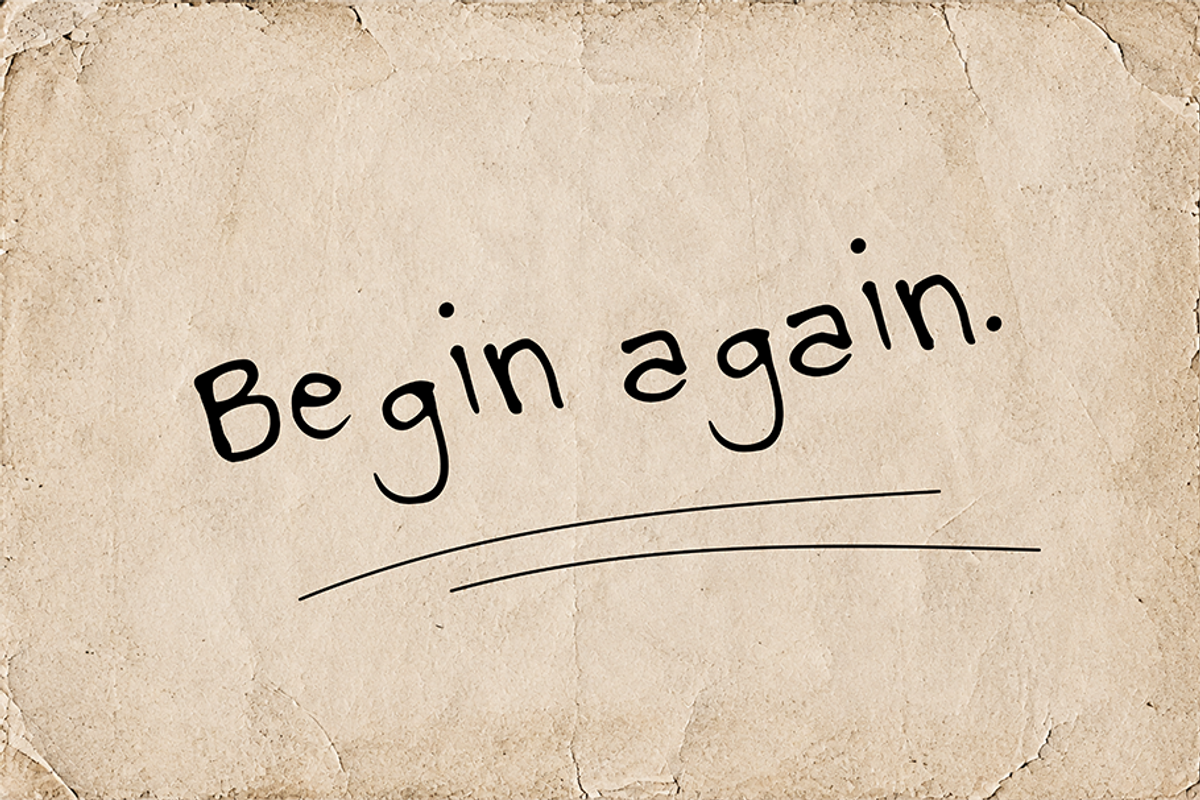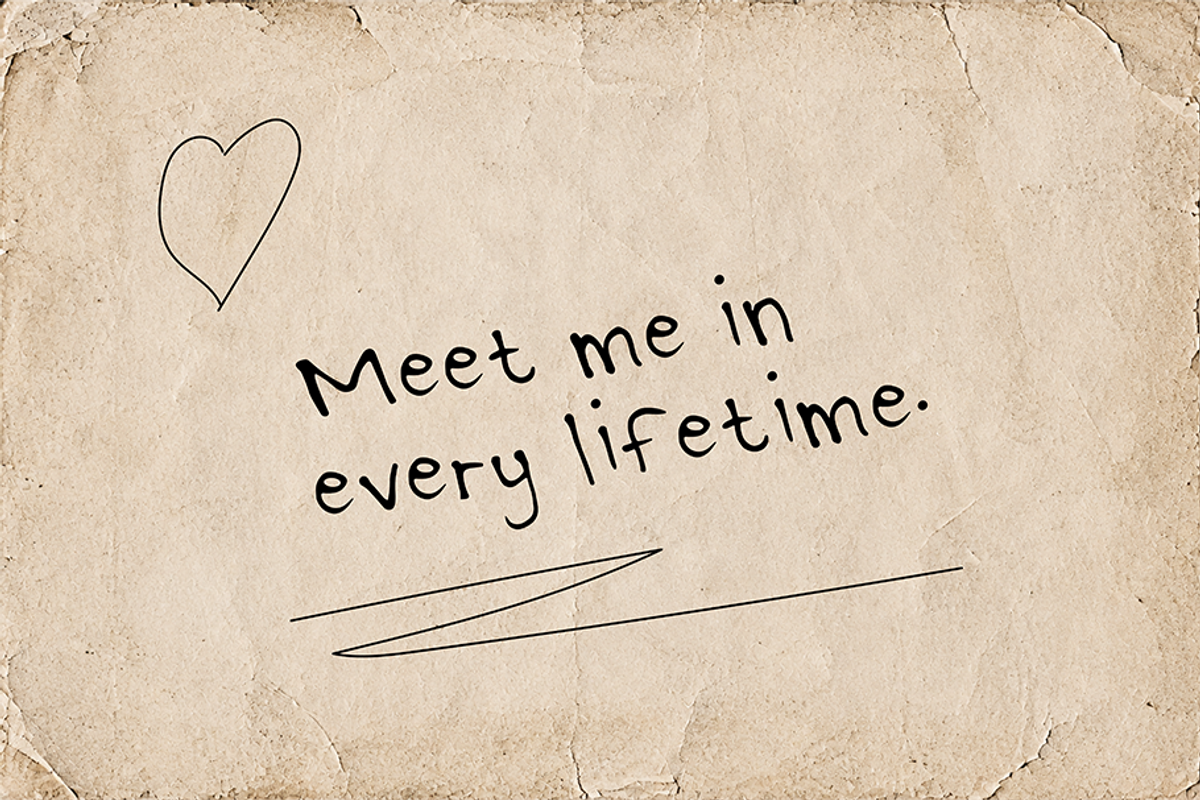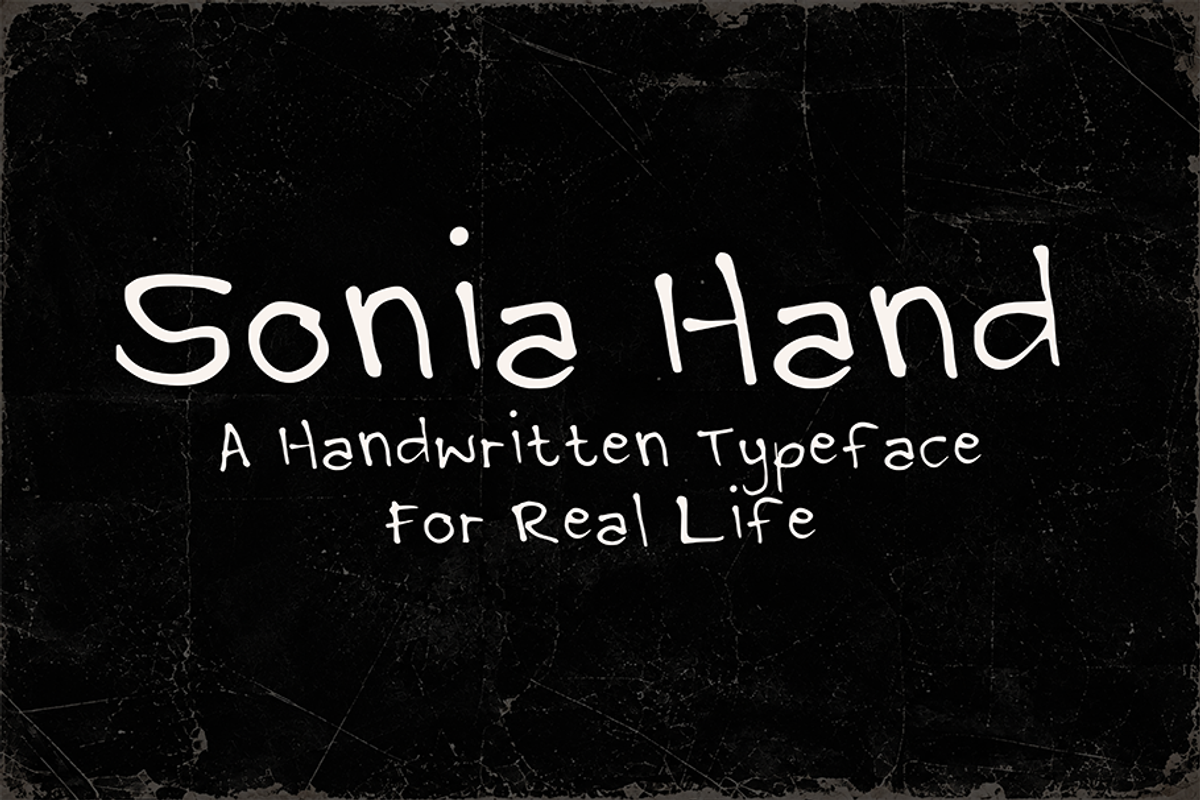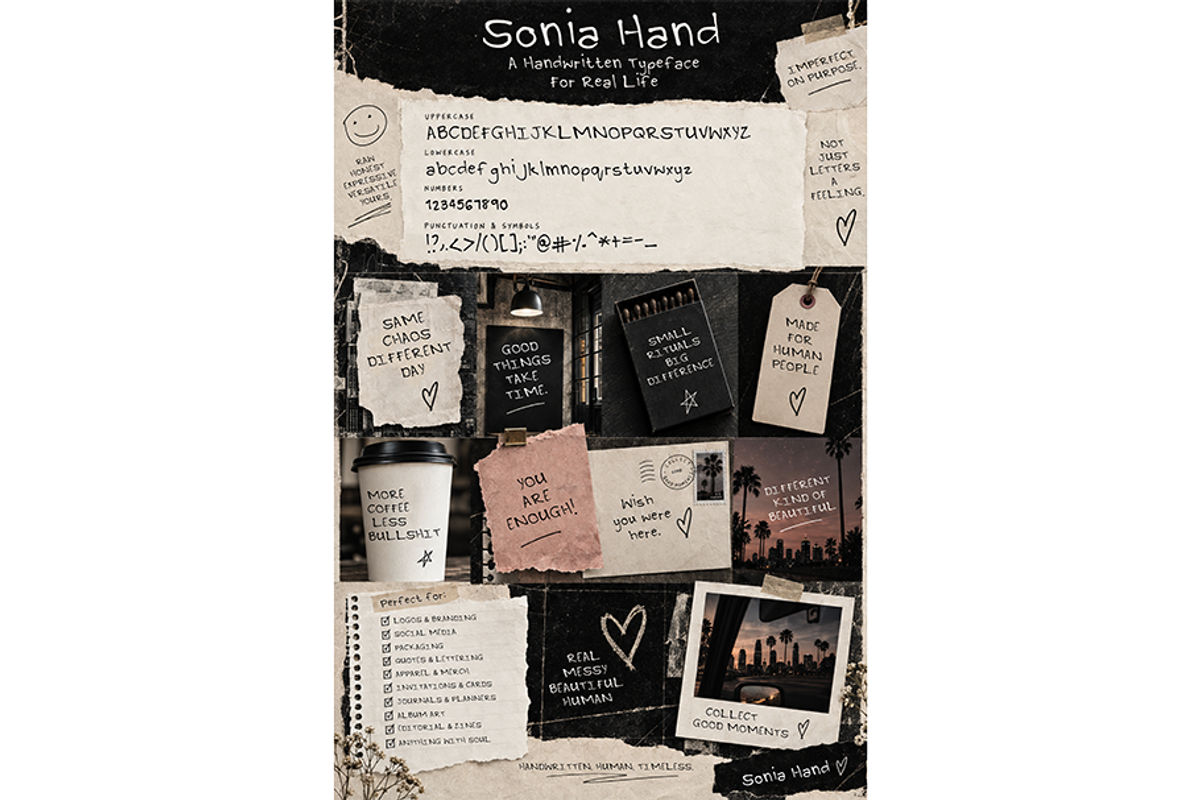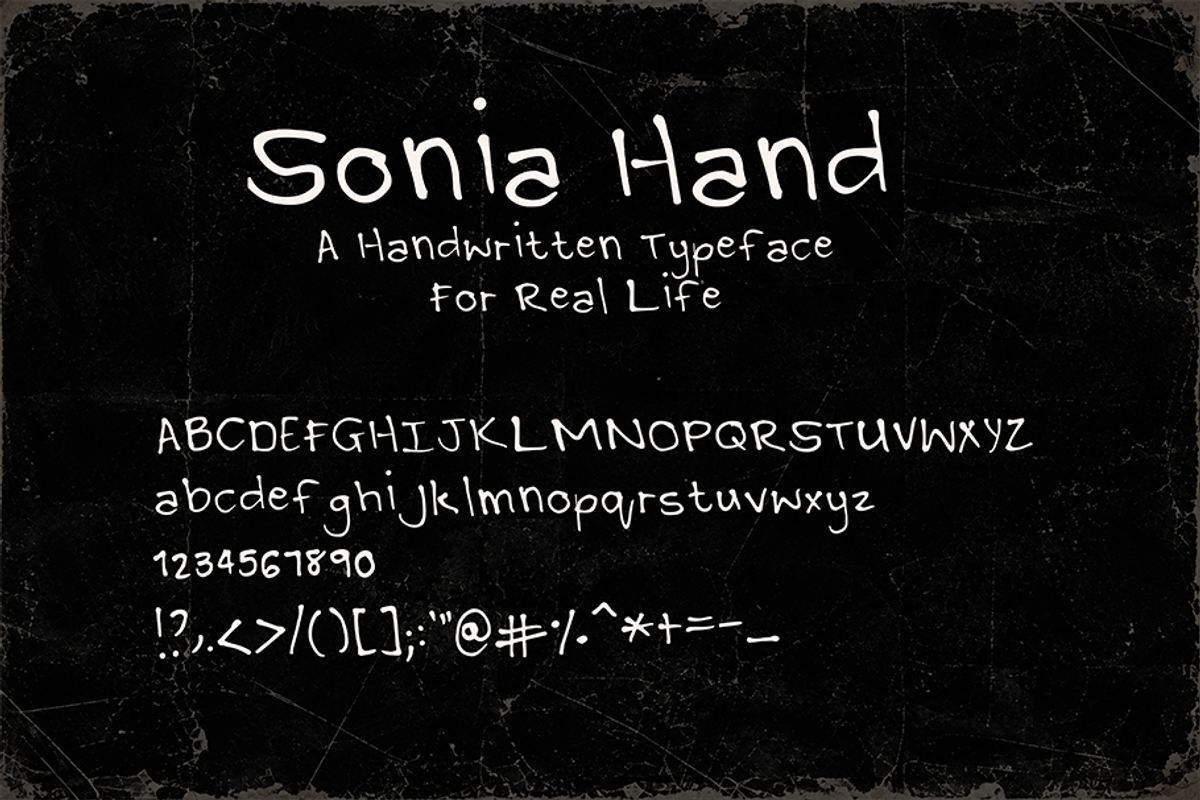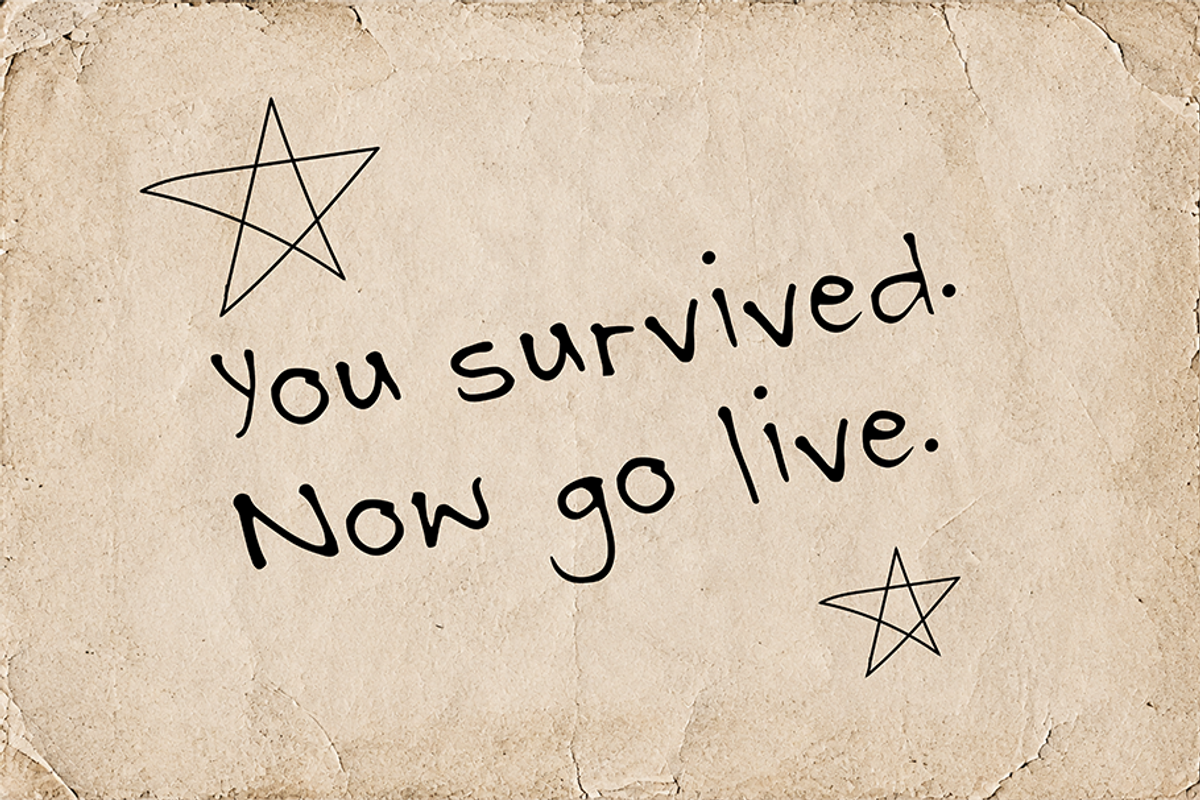
Sonia Hand - Human Handwritten Font
Sonia Hand is a playful, imperfect handwritten typeface designed to feel genuinely human. With naturally uneven letterforms, subtle quirks, and a loose hand-drawn rhythm, it captures the personality of real handwriting without feeling overly polished or manufactured.
Casual, expressive, and a little rebellious, Sonia Hand moves easily between sweet and romantic, playful and quirky, or raw and editorial depending on how it’s styled. It feels equally at home scribbled across a love note, layered over a moody photograph, printed on a coffee cup, or used as the finishing touch on modern packaging.
Its organic character makes it especially suited for branding, social media, greeting cards, quotes, apparel, packaging, journals, album artwork, editorial layouts, invitations, and handwritten accents.
Think Polaroid notes, margin scribbles, indie magazines, love letters, coffee-shop napkins, journal entries, DIY zines, and little reminders taped to the mirror.
Imperfect on purpose. Personal by nature. Made to feel like you actually wrote it.